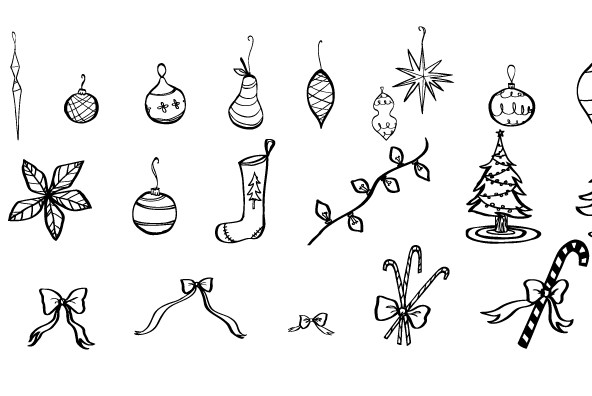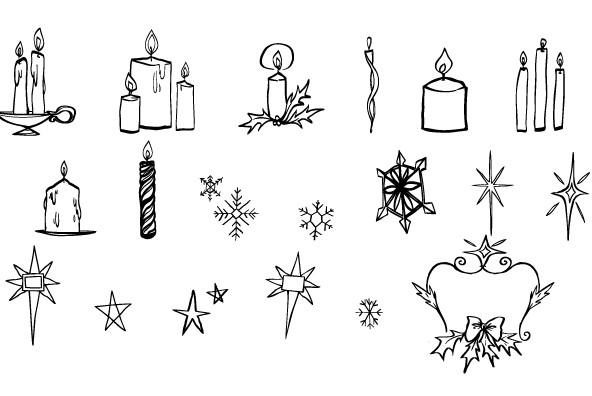
Blue Goblet Christmas Ornaments
Foundry: Insigne
Insigne™ is pleased to present new Christmas ornaments as the latest in the Blue Goblet series--a series of fonts and ornaments by artist Cory Godbey This best-selling series has now been extended to include a new Christmas-themed member Hand drawn by the artist, the Blue Goblet additions are a fun and lively take on Christmas ornaments Expressive and spontaneous, these ornaments seem to dance their way across the page They can be used in conjunction with the original Blue Goblet Ornaments and the Blue Goblet fonts, which include both a sans serif and serif member Combine them to form interesting compositions, or insert them directly into your layout as chapter headings or illustrations There are over 60 of the Christmas-themed ornaments, including Christmas trees, bows, ivy and more Check out the pdf or the promotional graphics to see all of these great options